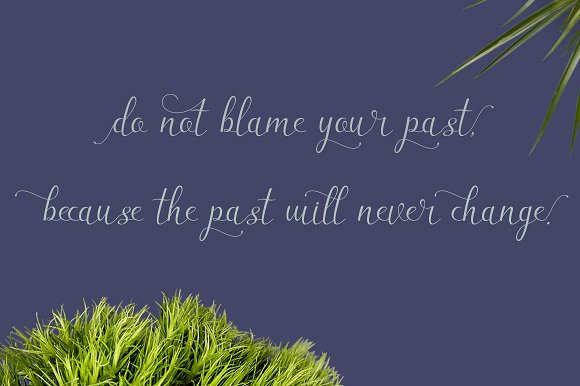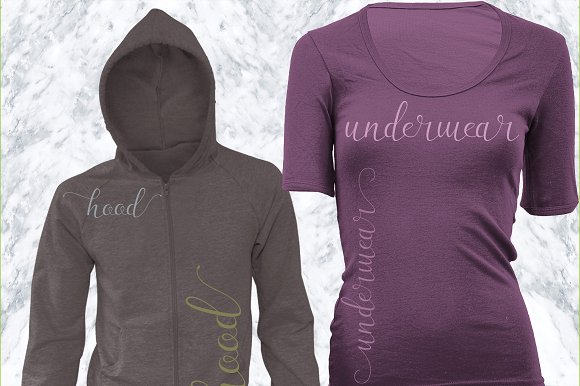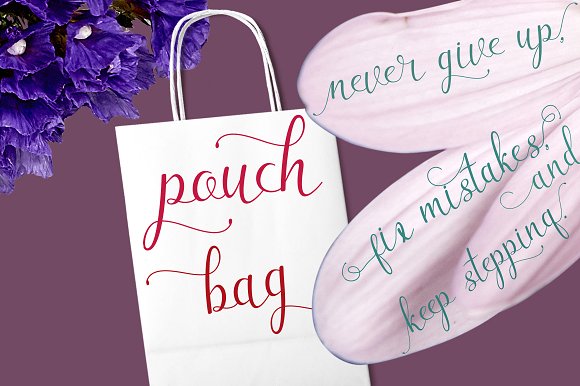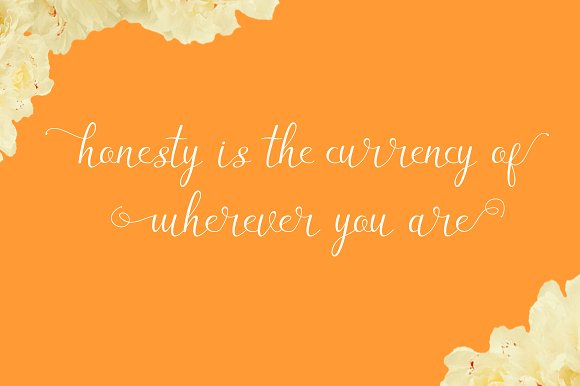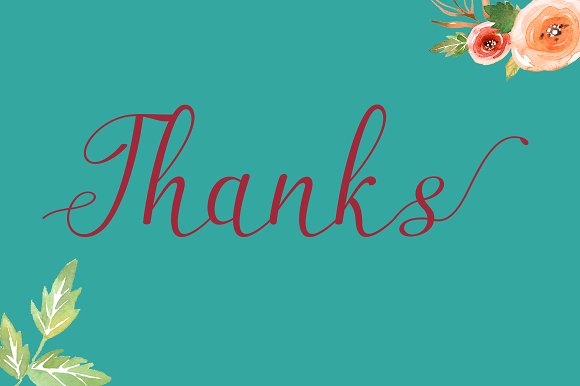
Introducing Garlic Font: A Handwritten Script Font with a Personal Touch
Are you tired of using the same old fonts in your designs? Look no further than the Garlic Font, a beautiful handwritten script font created by Jhoen Studios. This stunning font is completely drawn by hand, giving it a unique and personal touch that’s sure to make your designs stand out.
What Makes Garlic Font So Special?
Garlic Font is more than just a pretty face – it’s a versatile and functional font that’s perfect for a wide range of design projects. Here are just a few of the features that make it so special:
- Handwritten with love: Garlic Font is completely drawn by hand, giving it a warm and personal feel that’s hard to replicate with digital fonts.
- Alternate characters: The font includes many alternate characters, allowing you to add variety and interest to your designs.
- Stunning swashes: The font features beautiful swashes that can be used to add a touch of elegance and sophistication to your designs.
Garlic Font is perfect for designers and crafters who are looking for a unique and versatile font to add to their collection. Whether you’re creating:
- Branding and logos: Garlic Font is perfect for creating custom logos and branding materials that need a personal touch.
- Stationery and invitations: The font is ideal for creating beautiful stationery, invitations, and other paper goods.
- Digital products: Garlic Font can be used to create stunning digital products, such as printable art, planners, and journals.
- Crafting projects: The font is perfect for crafters who want to add a personal touch to their projects, such as handmade cards, scrapbooking, and DIY gifts.
Tips for Using Garlic Font
Here are a few tips for getting the most out of Garlic Font:
- Experiment with alternate characters: Don’t be afraid to try out the alternate characters and swashes to add variety and interest to your designs.
- Mix and match: Combine Garlic Font with other fonts to create a unique and eye-catching design.
- Pay attention to spacing: Make sure to adjust the spacing between letters and words to create a clean and easy-to-read design.
| Font Name | Garlic Font |
| Author | Jhoen Studio |
- Font Name: Garlic Font
- Font Style: Handwritten Script Font
- Font Creator: Jhoen Studios